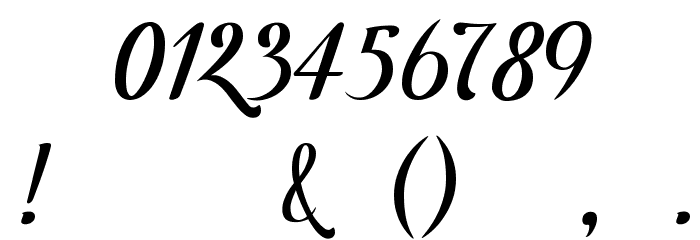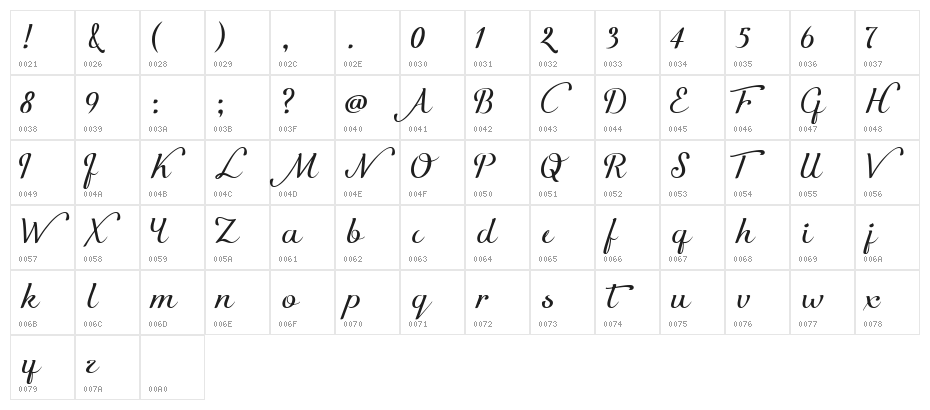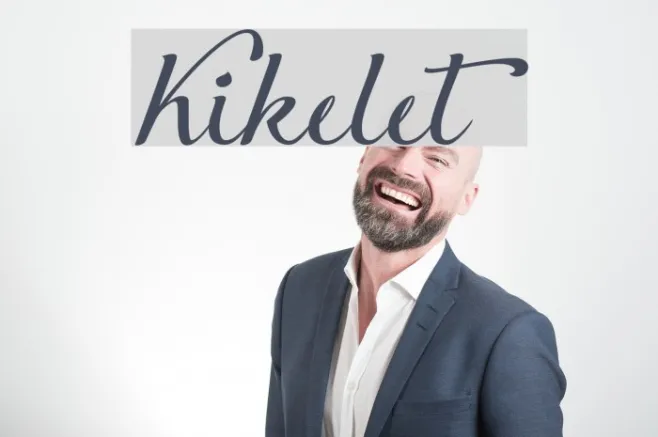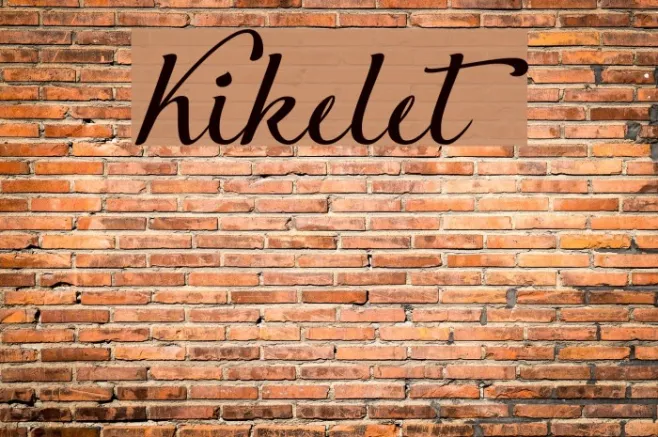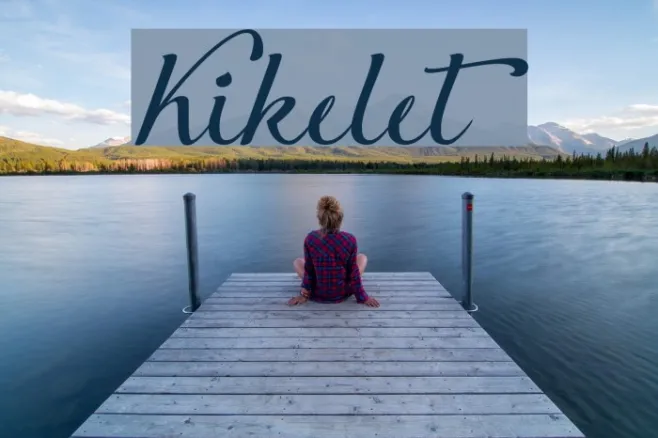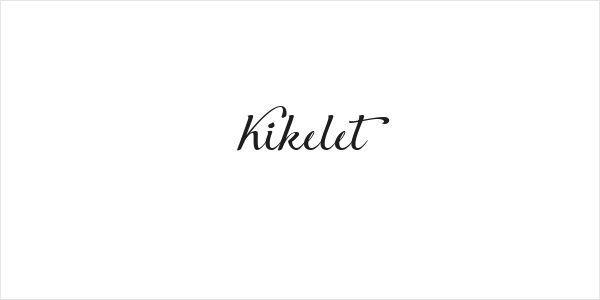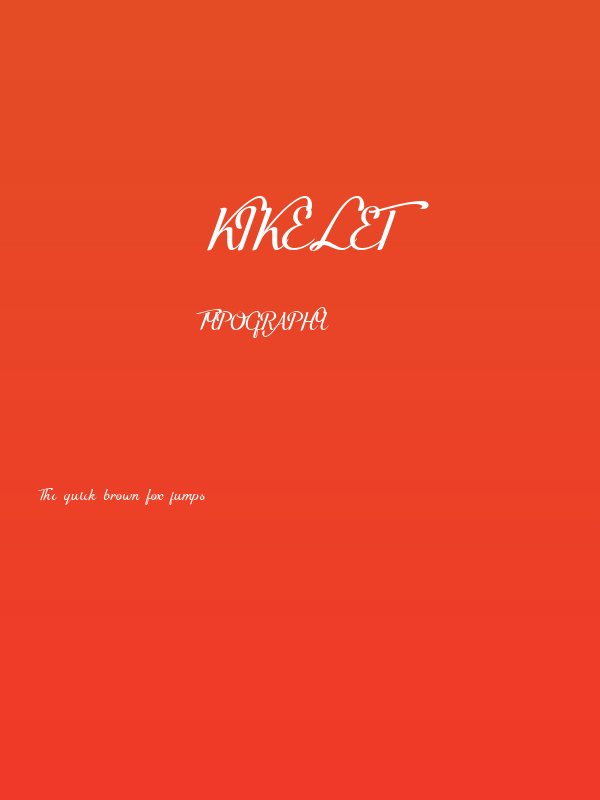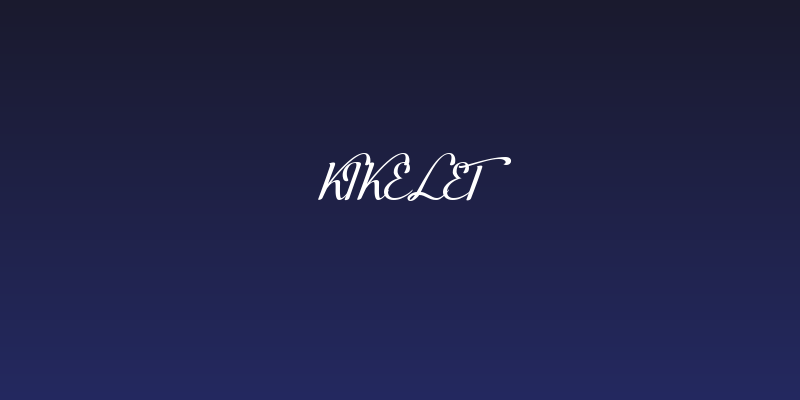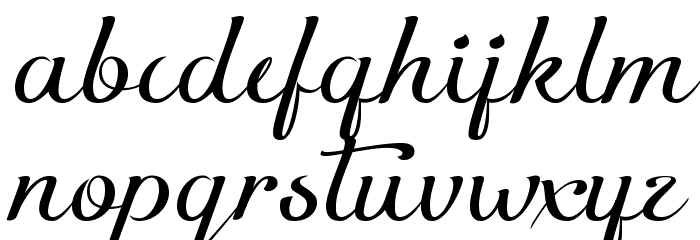
Kikelet Font
Kikelet Description
This elegant script font features flowing, cursive letters with a sophisticated flair. The characters are interconnected with smooth, sweeping strokes that give a sense of motion and grace. The uppercase letters are ornate, with decorative loops and flourishes, while the lowercase letters maintain a consistent rhythm and style. The numerals are equally stylish, complementing the overall aesthetic. Special characters are thoughtfully designed, adding to the font's versatility. This font exudes a sense of luxury and refinement, making it ideal for projects that require a touch of elegance.
| Overall Style | Elegant, Sophisticated |
| Proposed Projects | Wedding invitations, luxury branding, elegant packaging, greeting cards, and formal event programs. |